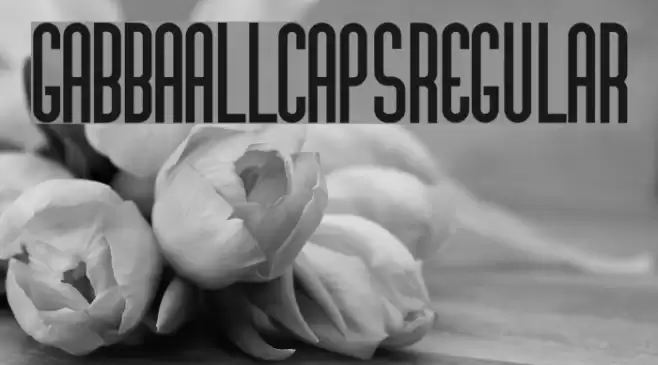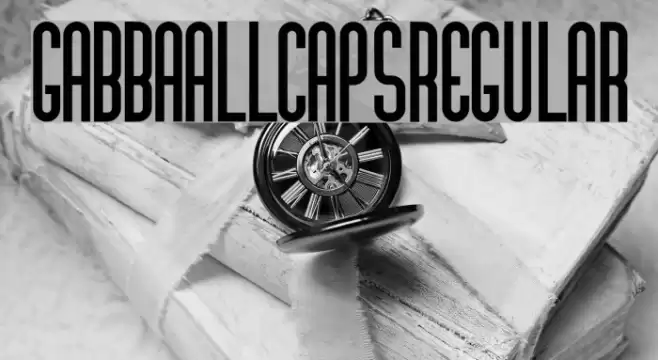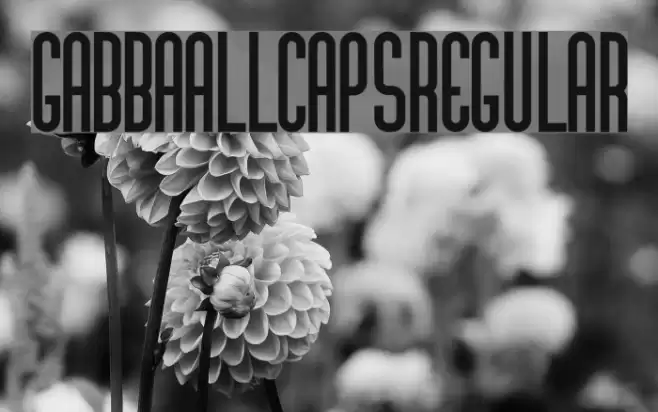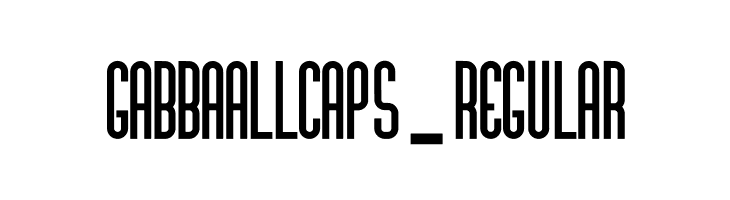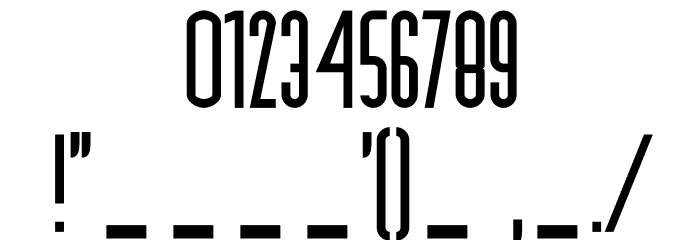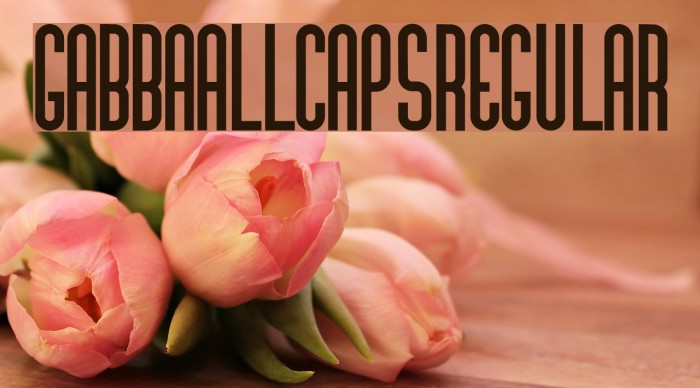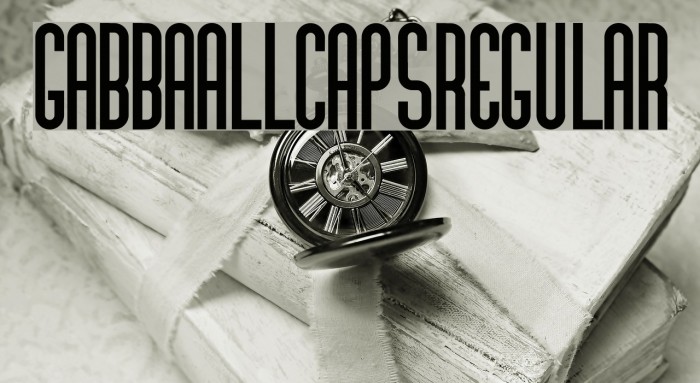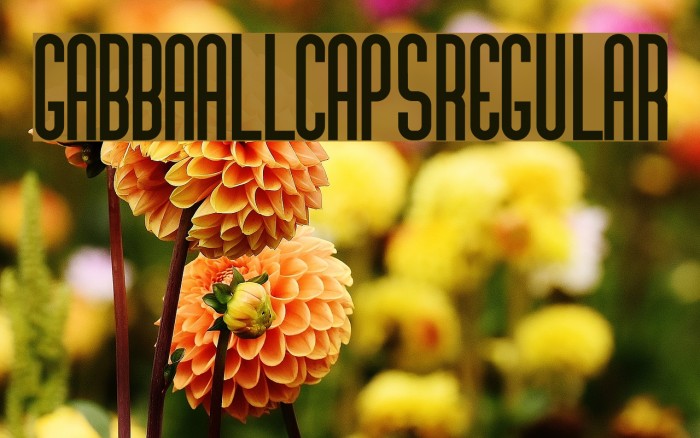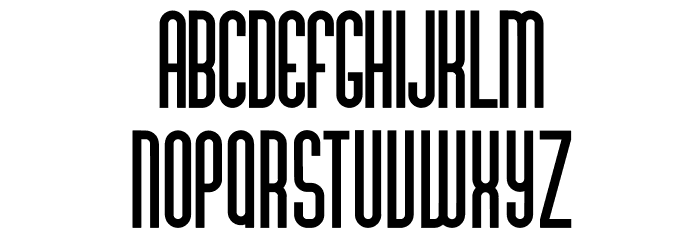
GabbaAllCaps-Regular Font
GabbaAllCaps-Regular Description
This font features a tall, narrow design with a modern and geometric aesthetic. The characters are uniformly structured, emphasizing verticality and clean lines. The uppercase letters are particularly elongated, giving a sense of elegance and sophistication. The numbers and special characters maintain the same narrow proportions, ensuring consistency across all elements. This font's unique style makes it suitable for creating a striking visual impact, especially in large formats.
A tall, narrow, and modern geometric font with elongated uppercase letters from Sans Serif fonts.
- Proposed Projects: Ideal for posters, headlines, branding, and any project requiring a bold and modern typographic statement.